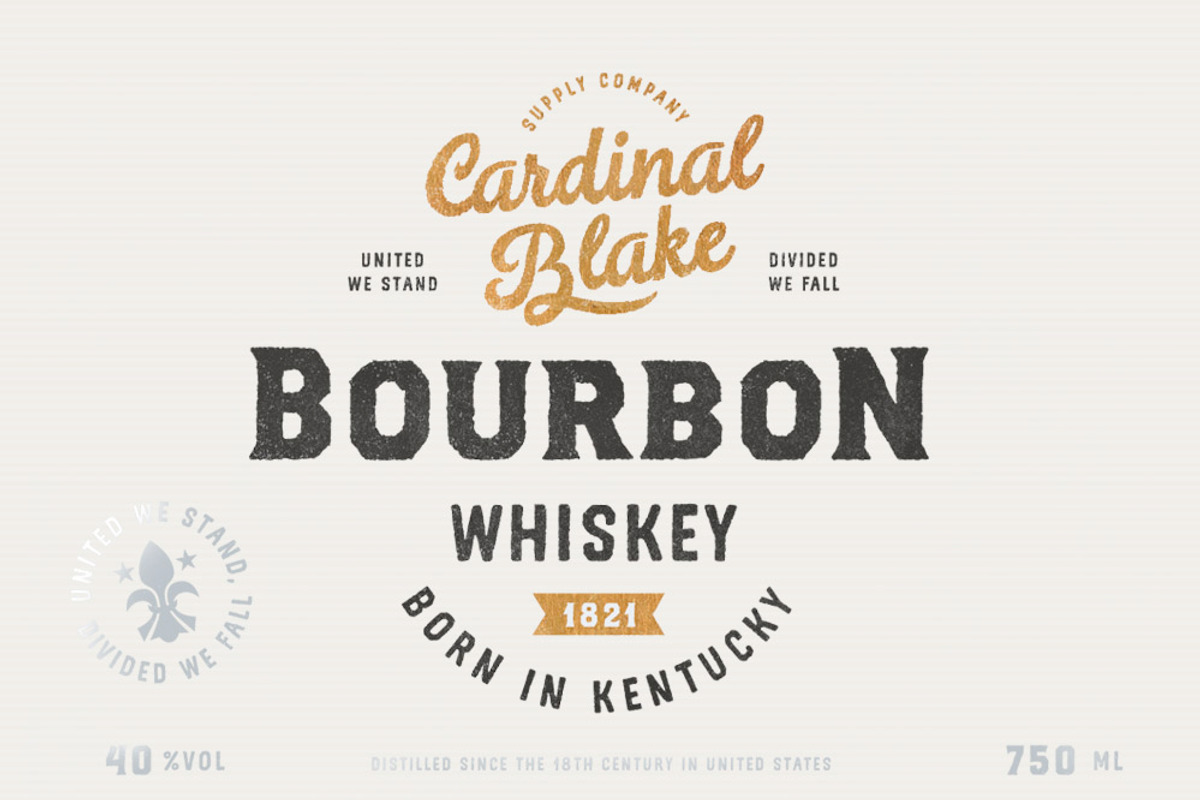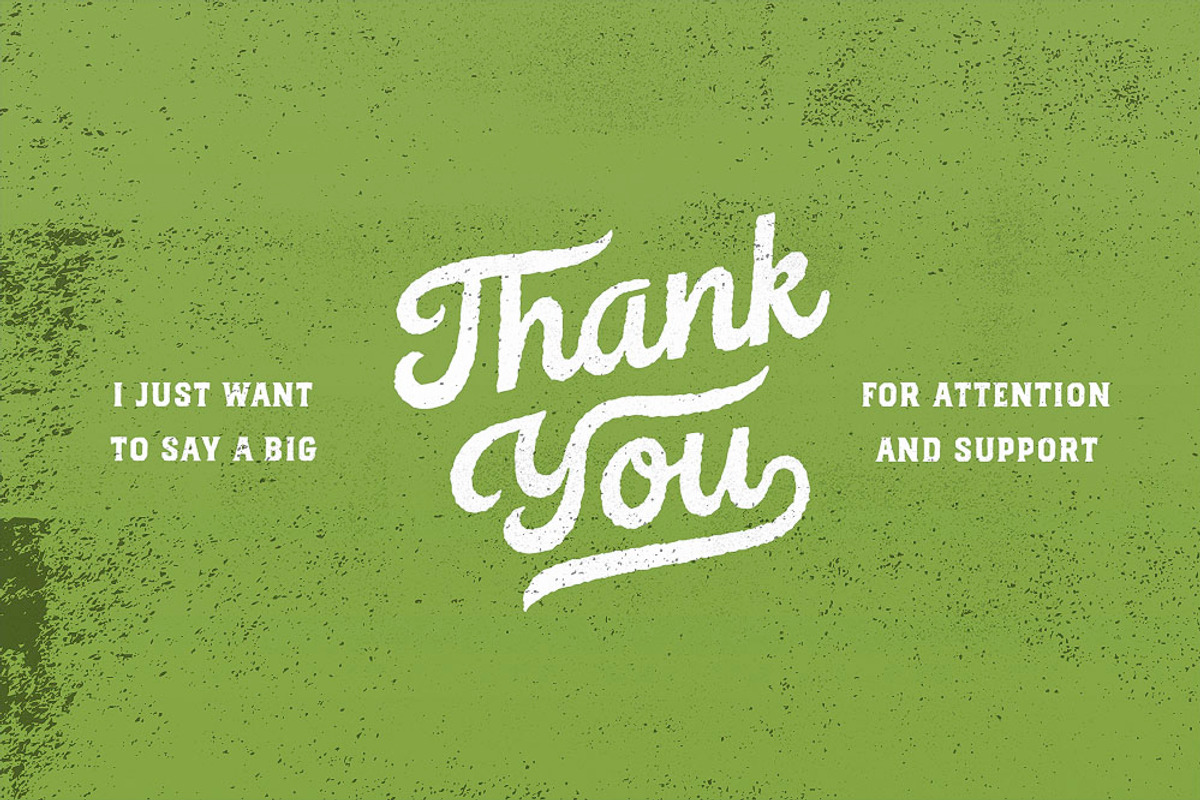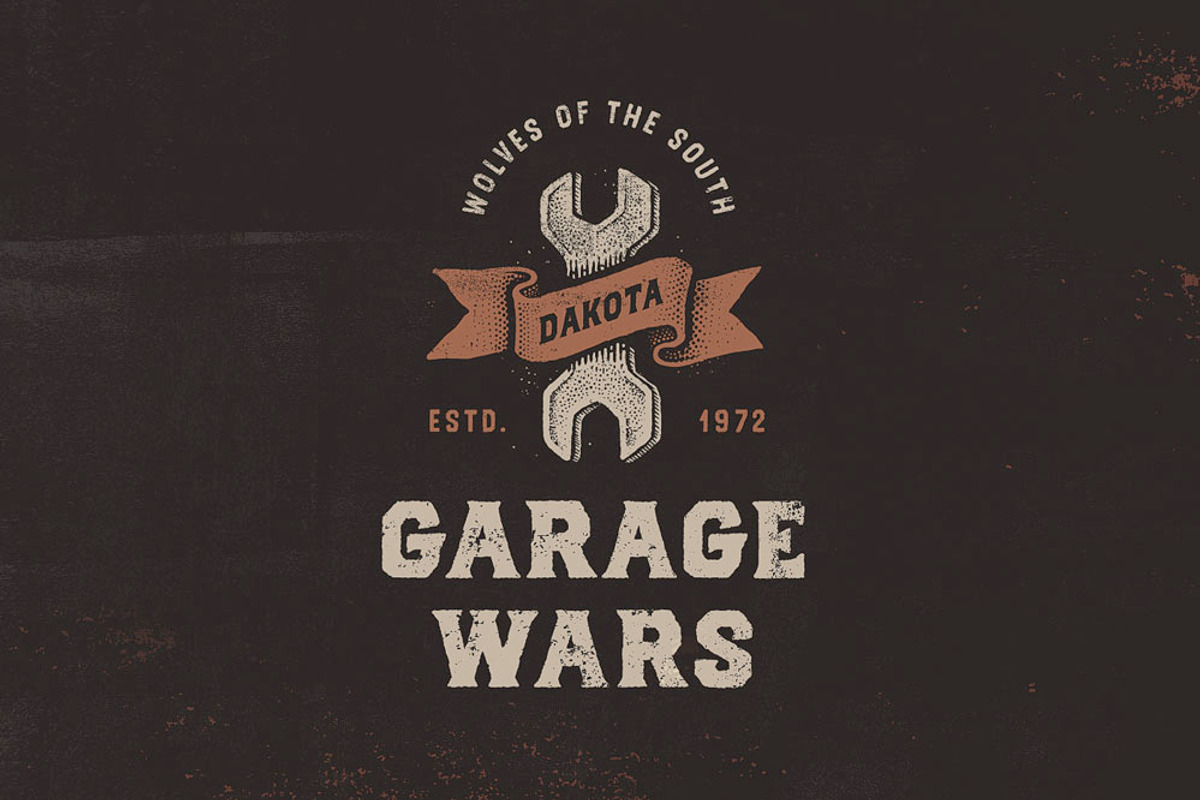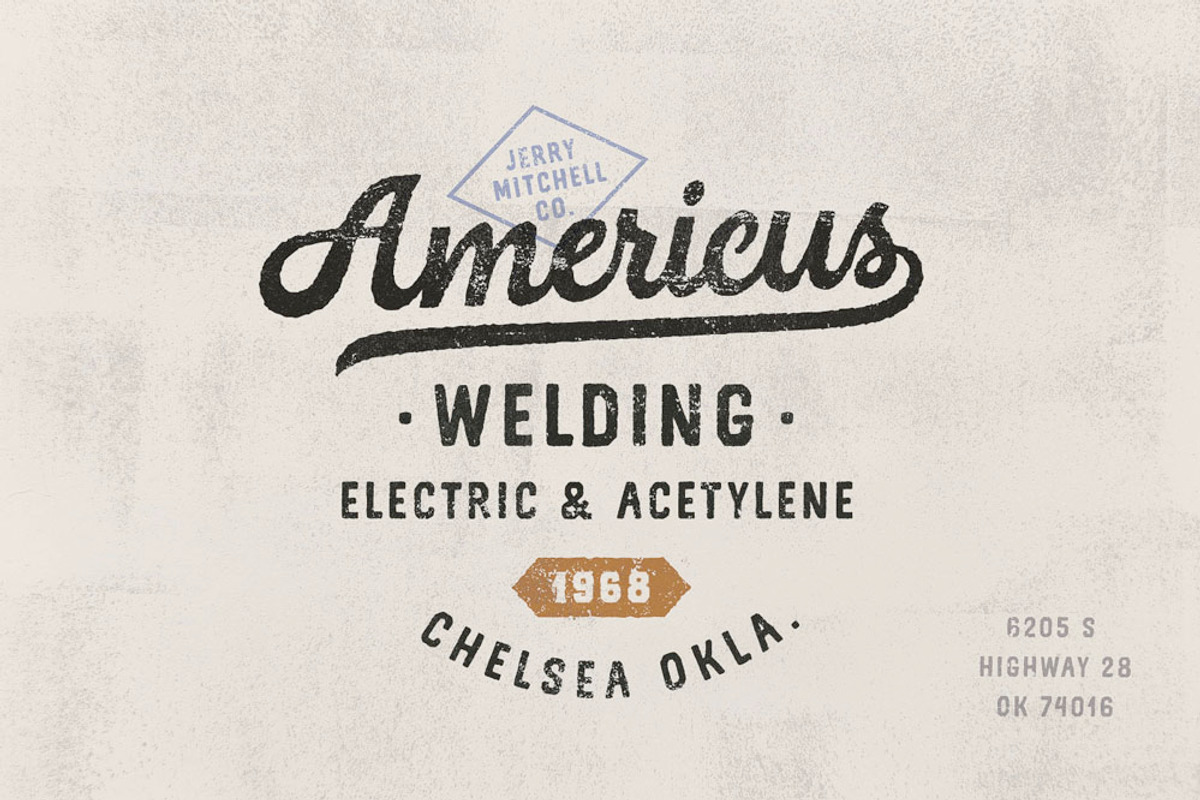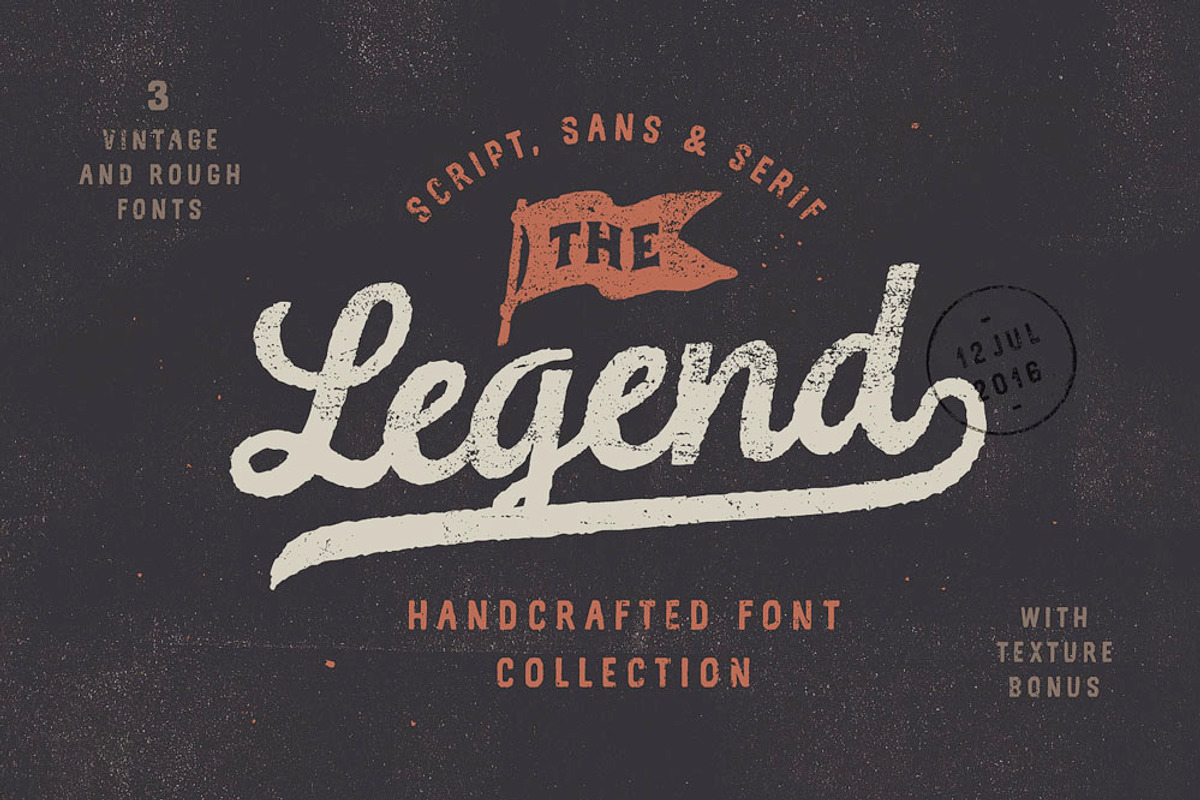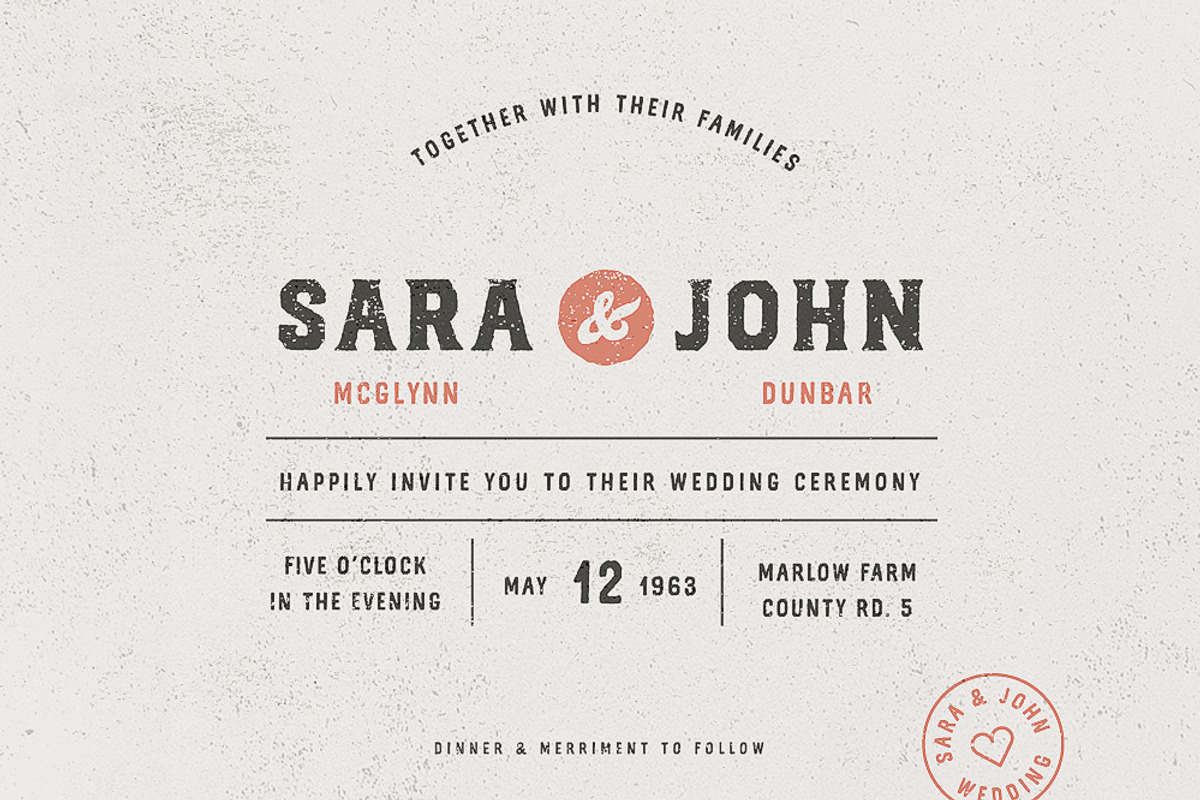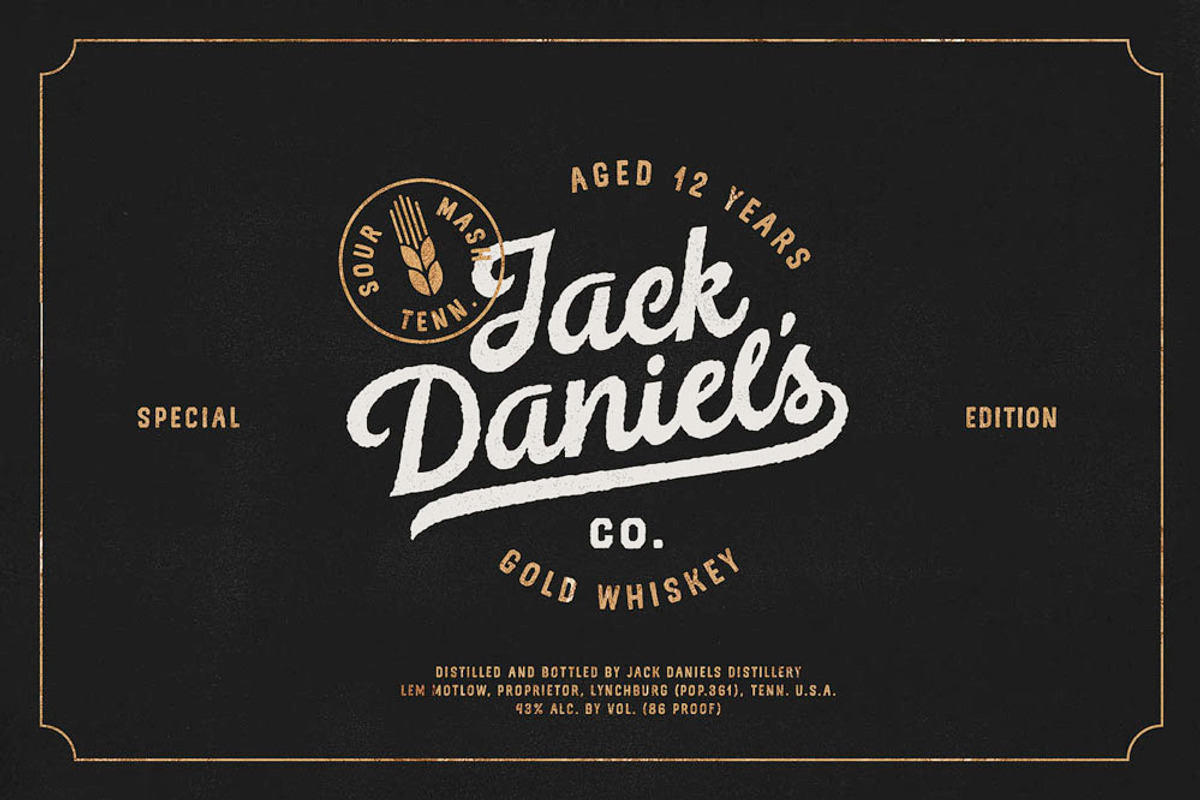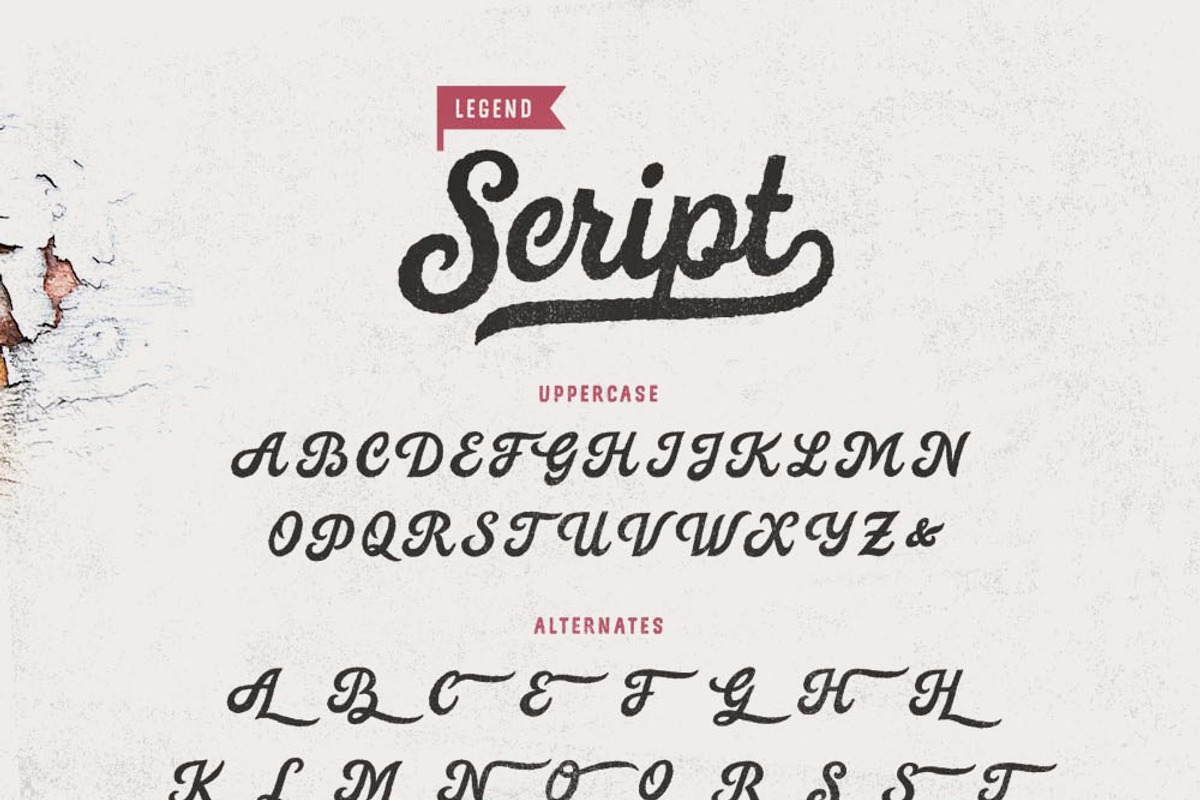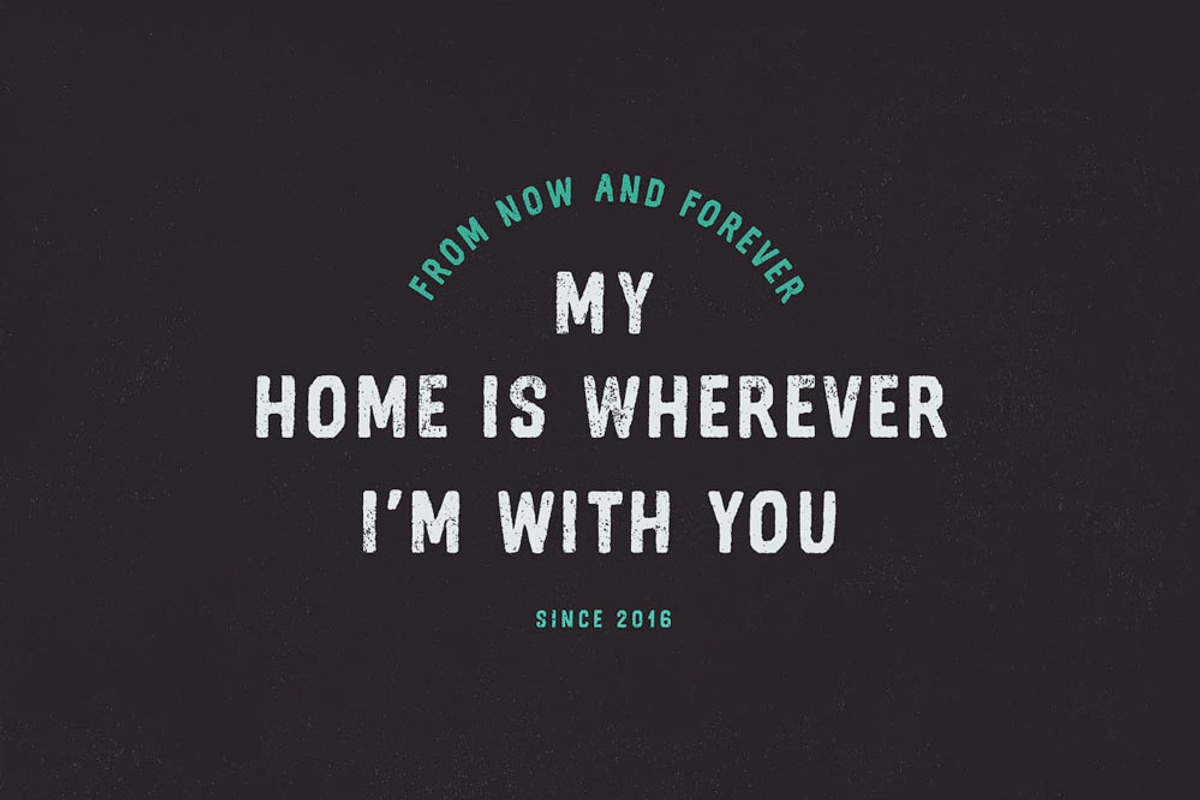
Legend Font trio + Textures
This font trio was crafted by hand under inspiration of traditional american typography and lifestyle. Collection includes Script, Sans and Serif, which perfectly cooperating for creating a vintage mood. I designed some examples below, so you can see how they works together. It can be used in different purposes: lettering and logotype, labels, t-shirts, product packaging, invitations, advertising and any key text in design.
The Legend Script has beautiful alternates for uppercase and numbers, 12 lengths end-swashes and special short version for lovercase characters with protruding elements like b, d, f, g, h etc (It helps to arrange words in two lines more compactly).
The Legend Sans and Serif was designed as a secondary and additional fonts after Script, but in the process of their use I realized that they also look great as a priority. All this fonts has rough effect because of brush painting beginning.
I'm using this mainly for the San Serif font, which is a nice vintage font. Unfortunately, the script font is too jagged for my taste, as others have mentioned.
Great looking fonts at smaller sizes but, to me, they are pretty limited at larger sizes. Those rough organic edges just come out looking a bit messy. In all fairness to the creator, maybe it is just my bad for not thinking about how this font would look at larger sizes. The glyphs are on point though!